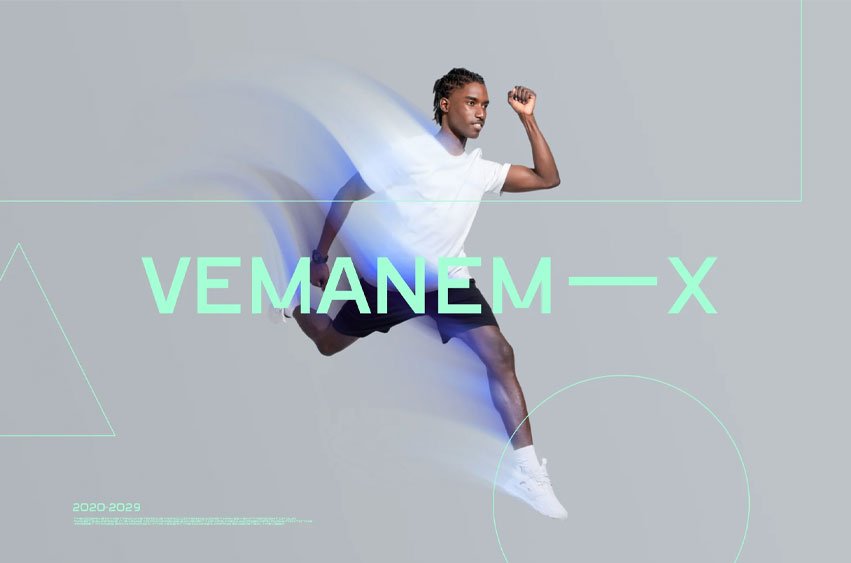
Vemanem X Font
Vemanem X Font The wide stance of the letters provides excellent readability for younger eyes, while the clean, robotic lines suggest a sophisticated world of gadgets and innovation.